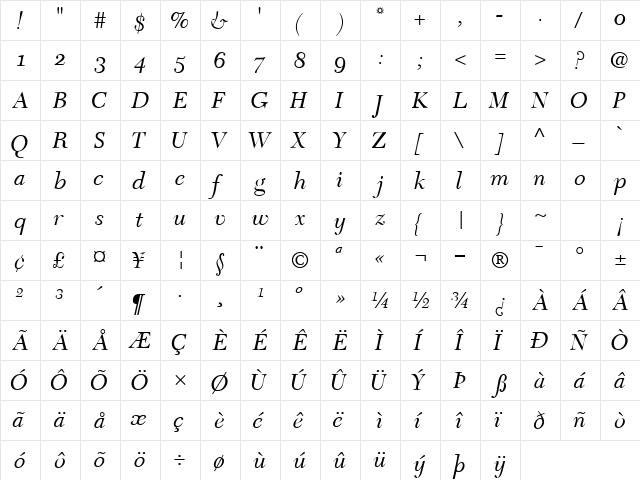
TycoonOSSSK Italic
Design Context for TycoonOSSSK Typeface
TycoonOSSSK is a composed and adaptable typeface that performs quietly and consistently across a wide range of design contexts. Its italic angle brings a sense of urgency and motion to the letterforms.
Pro Tip: Use TycoonOSSSK for emphasis, pull quotes, and subheadings where its slanted energy can add rhythm to the layout.